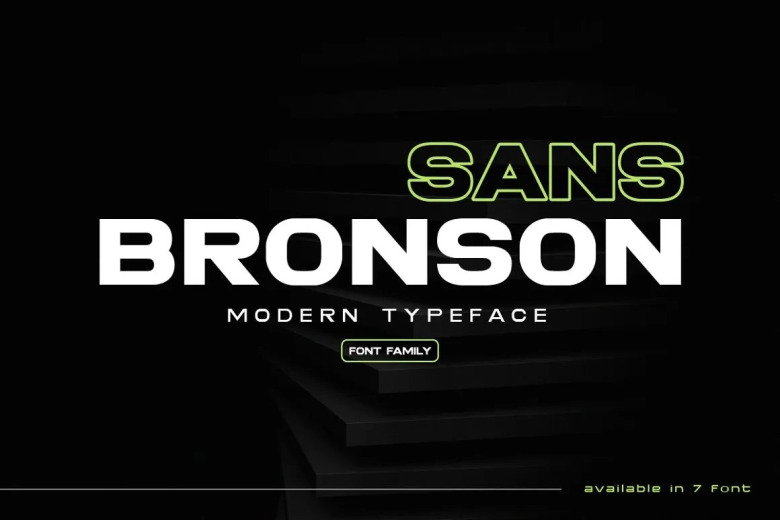
Bronson Sans Font
Bronson Font is a sans serif type font family that is commended in 7 weight classes. The style of the Bronson font in its body is very bold, It also has a high contrast factor. This font is highly appropriate and looks trendy when used with objective design colors. This font is great, and it offers a clean and elegant font, perfectly shaped, so it can fit a lot of creations which need a different look.
You should include it with confidence in your activities; trust me, you are going to enjoy the outcome. This typeface is ideal for sophisticated icons, businesses, advertisements, book designs, magazines, or just for placing text on top of any image.
Bronson Sans Serif Typeface